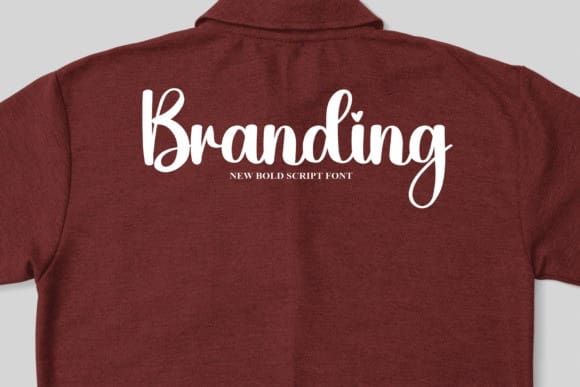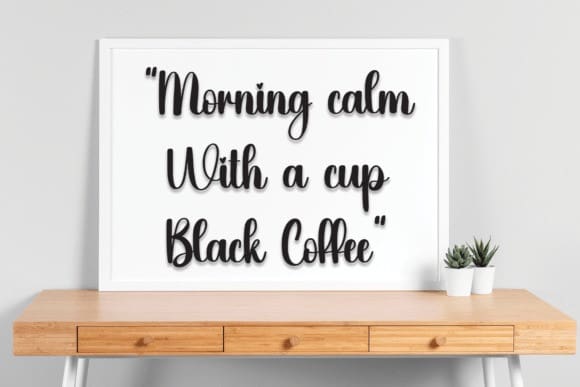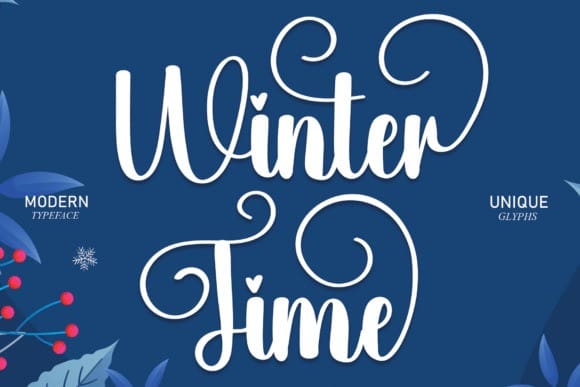
Winter Time Font
Winter Time Font is a romantic and sweet calligraphy typeface with characters that dance along the baseline. It has a casual, yet elegant touch.